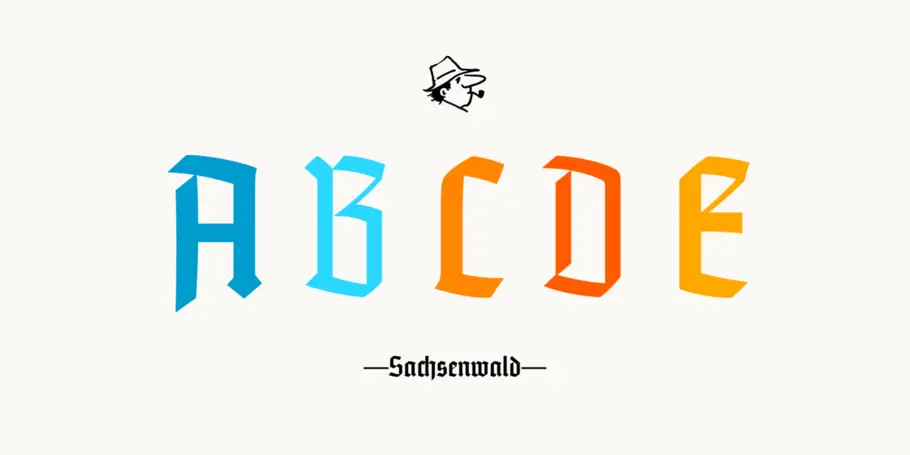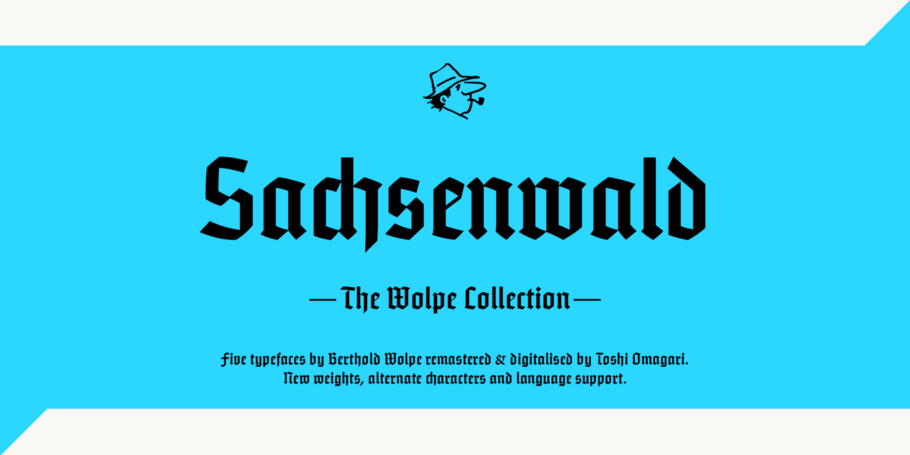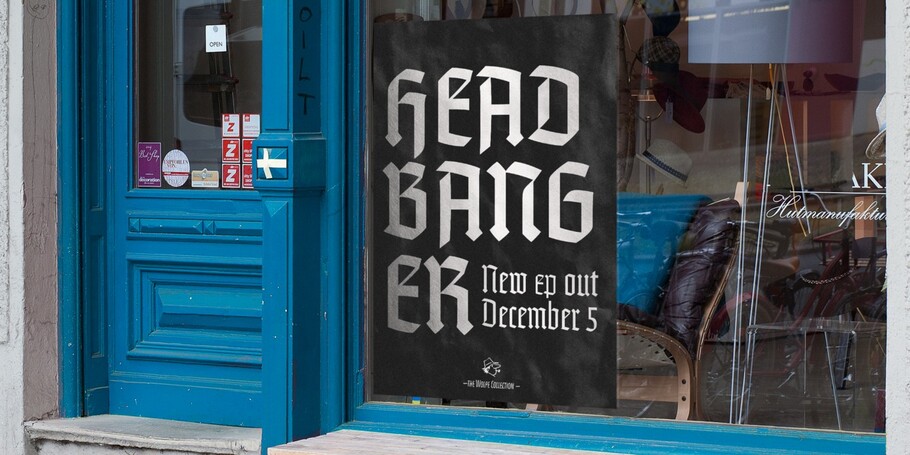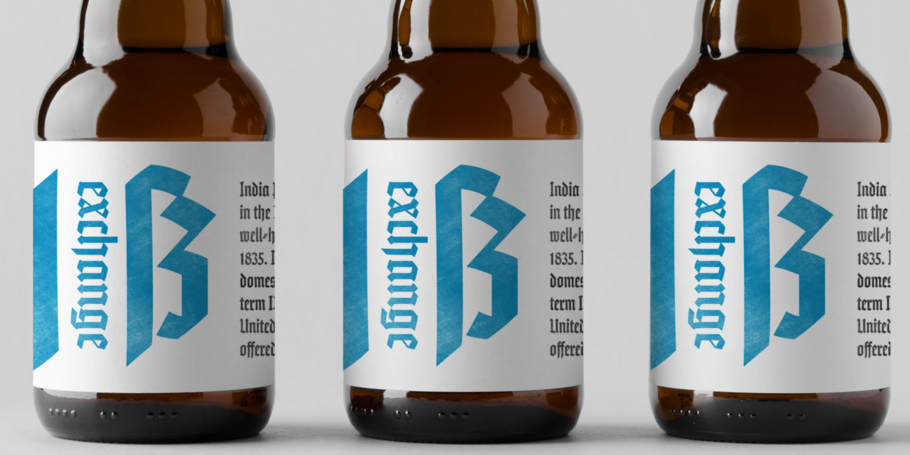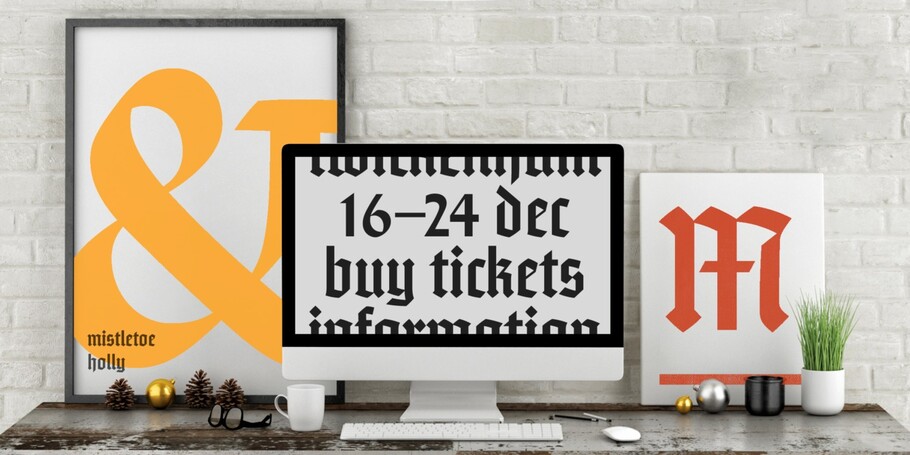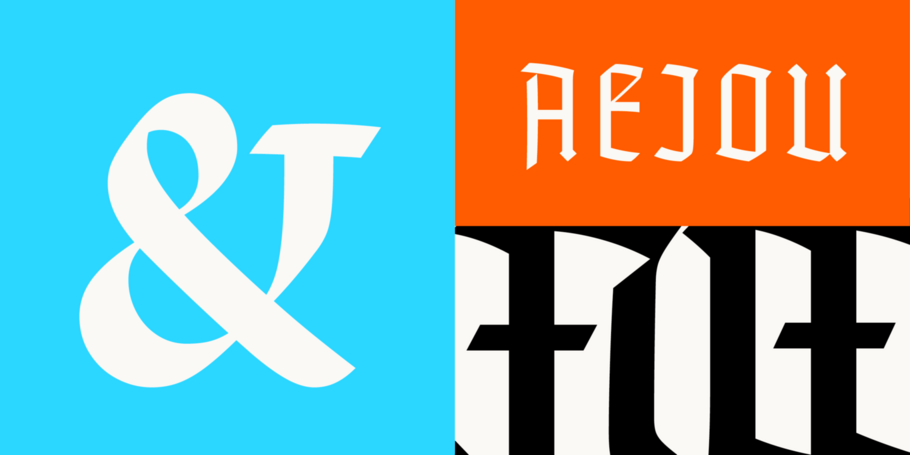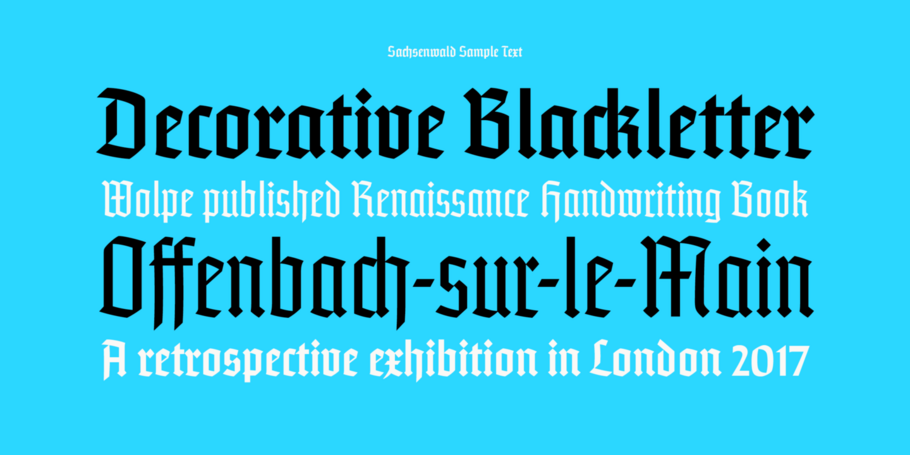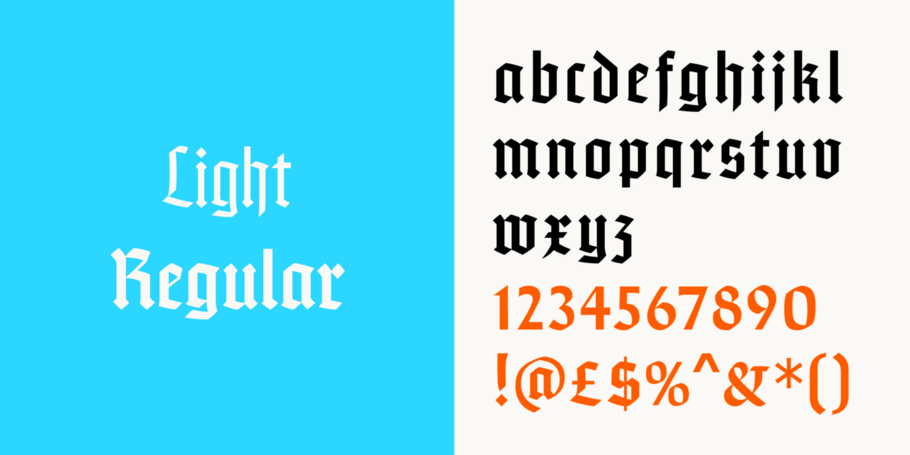
Sachsenwald™
The Wolpe Collection.
Saschenwald is part of The Wolpe Collection of typefaces, and is the first digitization of this innovative blackletter design. The Wolpe Collection celebrates Berthold Wolpe’s outstanding body of work, and includes five iconic typefaces, digitized and updated by Toshi Omagari of the Monotype Studio.
Berthold Wolpe first created the Sachsenwald typeface for a German publisher, who abandoned the order during World War II. Wolpe then tried to make his Sachsenwald typeface suitable for use in the general public, with the hope that it would ignite a “passing vogue” for blackletter type. But the early use of blackletter type by Nazi Germany, which was later dismissed in favor of Roman type, kept the Sachsenwald design from achieving wider adoption around the world.
When he discovered the Sachsenwald typeface, Toshi Omagari saw the opportunity to revive and preserve a beautiful blackletter design. Toshi adding an alternate X character, and created light and regular weights to accommodate a whole new set of uses.
Berthold Wolpe helped shape graphic design in post-war Europe. His book jackets, with their intense colour and vivacious typography, were way ahead of their time, and his Albertus® typeface continues to be widely admired and used by designers today.
With a focus on multilingual typography, Senior Type Designer Toshi Omagari has created fonts for several major brands and worked on some of Monotype’s most recent major type releases. He is a regular speaker at events like ATypI, sharing his experience and insights on multilingual type design.